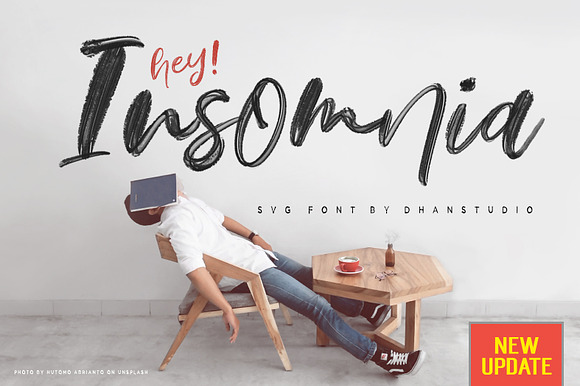
Hey Insomnia SVG Font
This is a font made with cool transparent textures and has ligatures, also has a-z alternates.
Hey Insomnia SVG Font by Dhan Studio fits naturally into Branding, posters, packaging, typography.